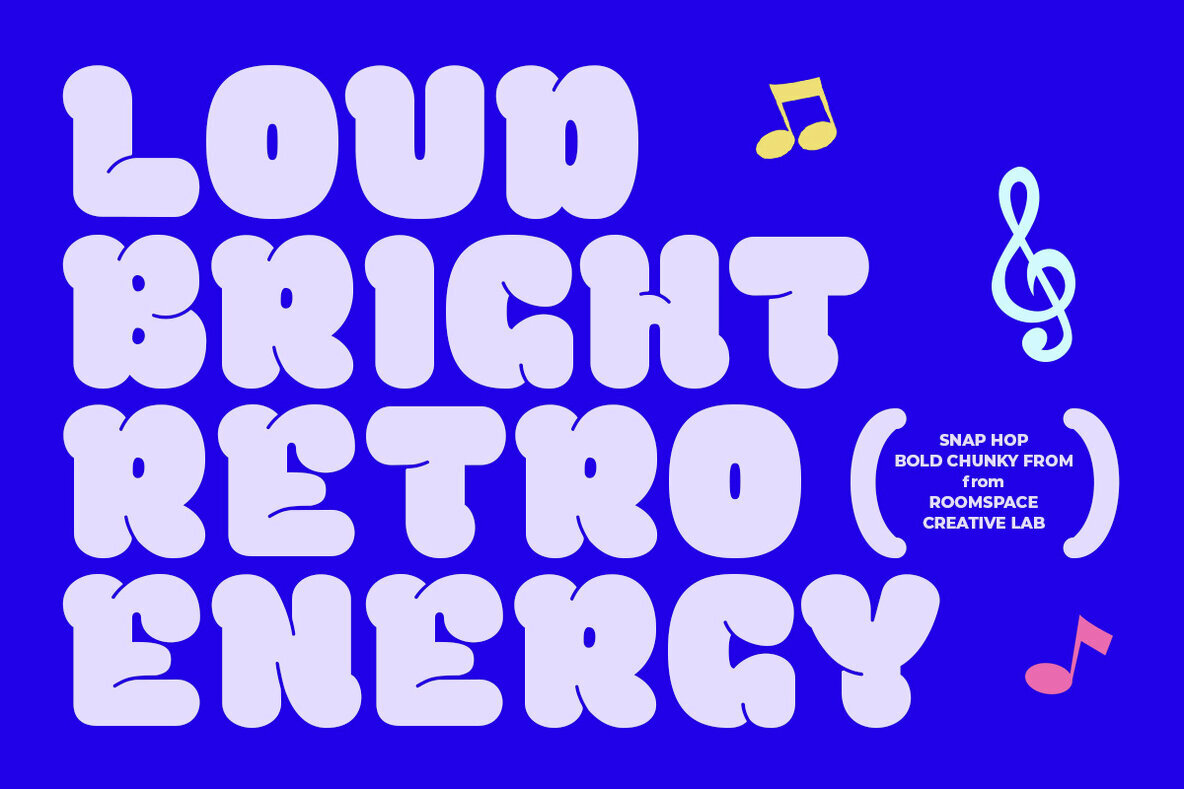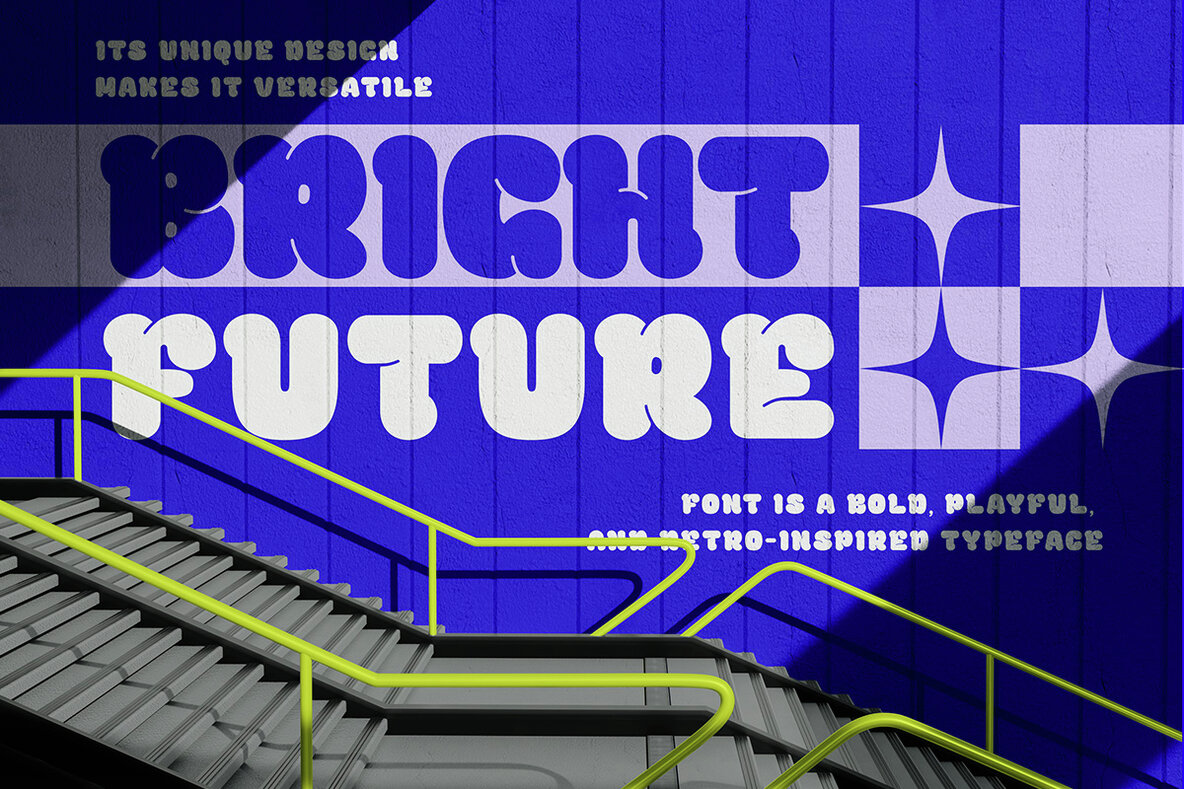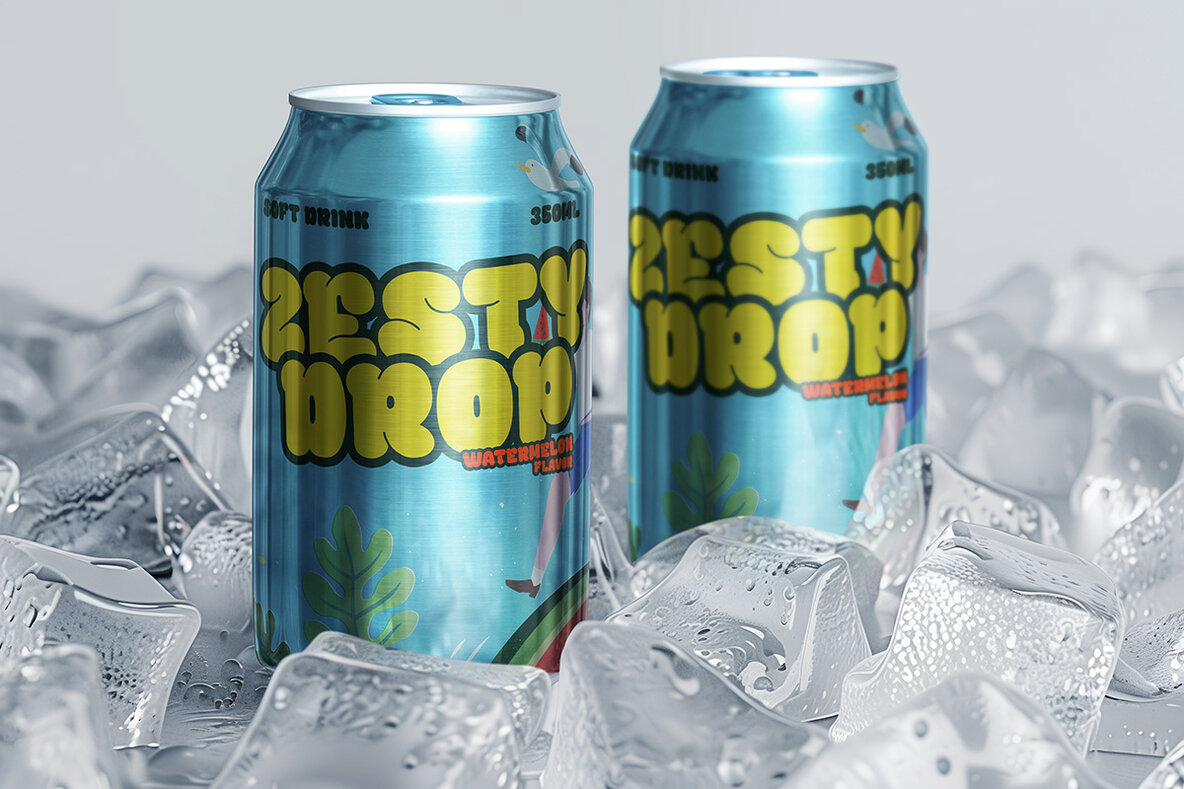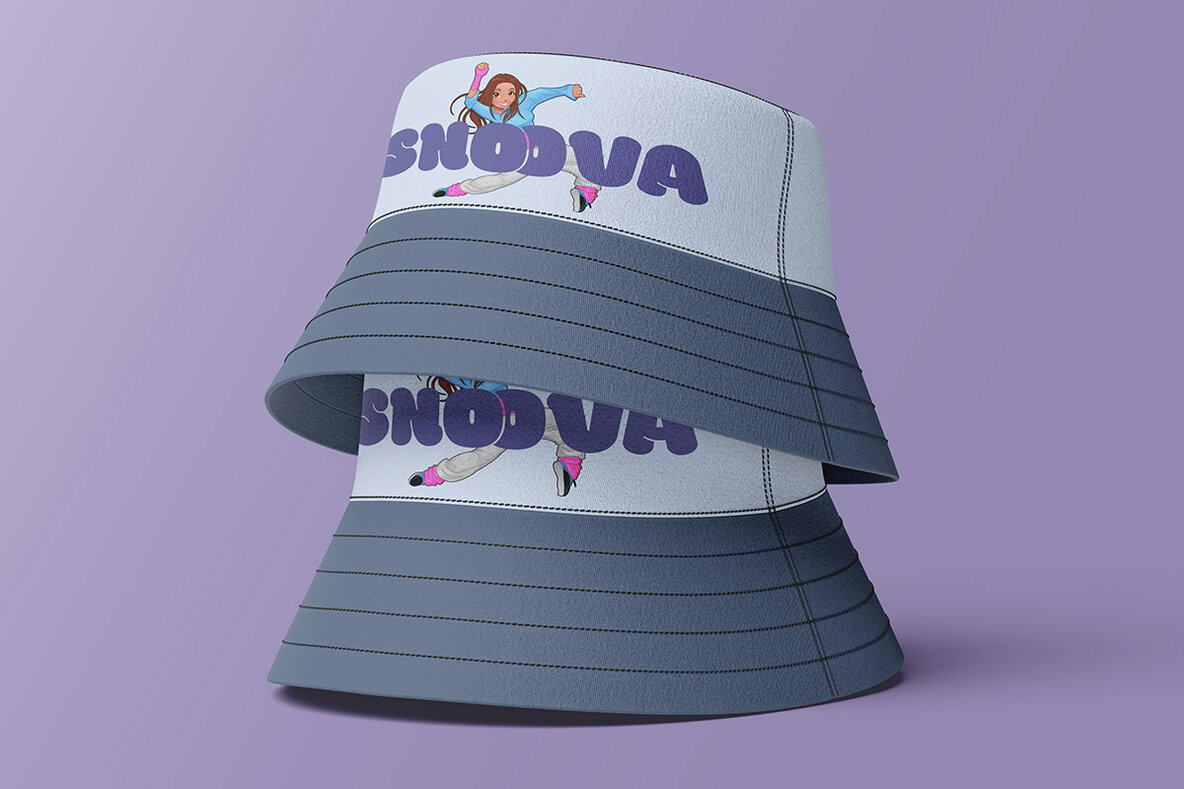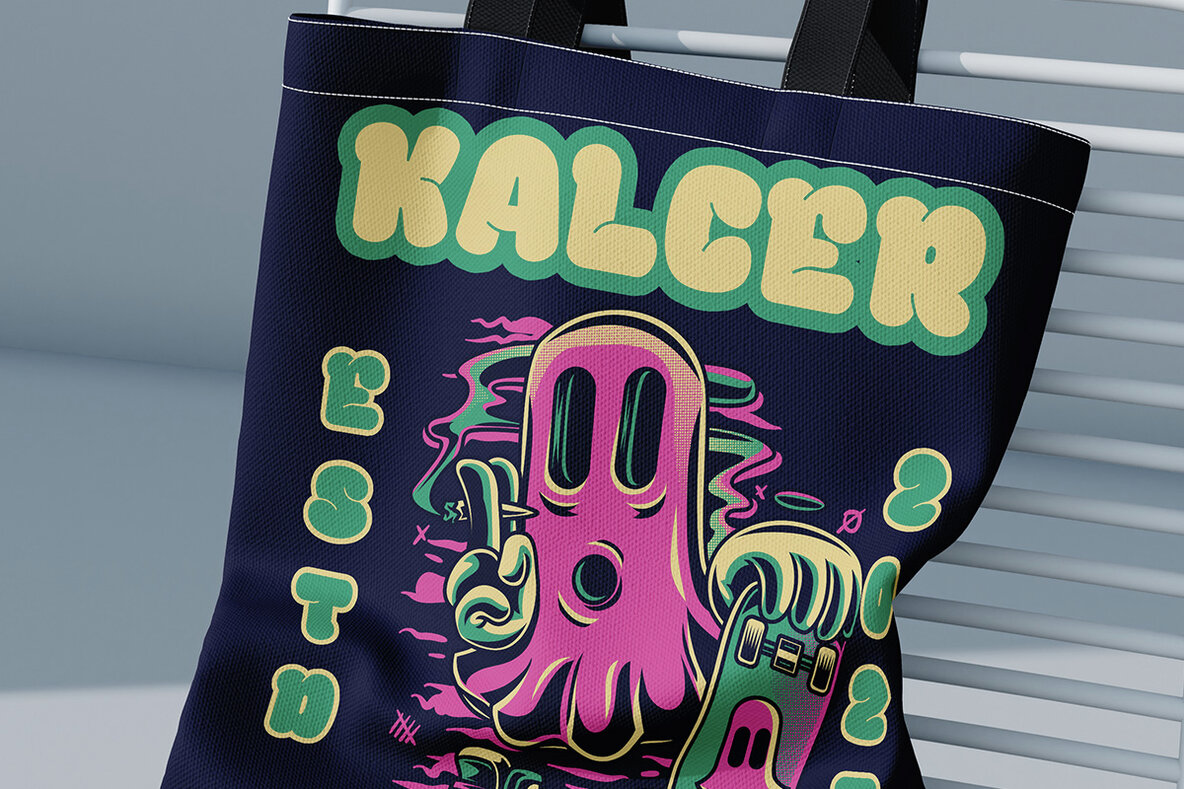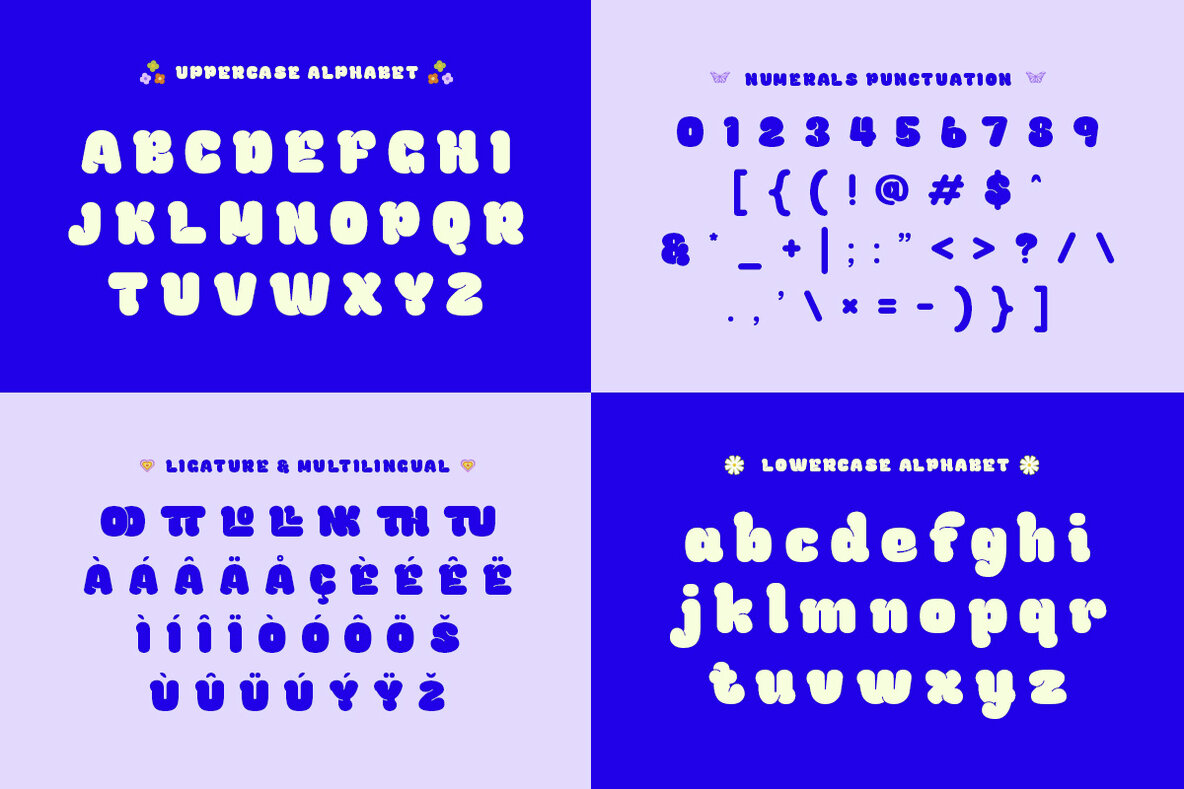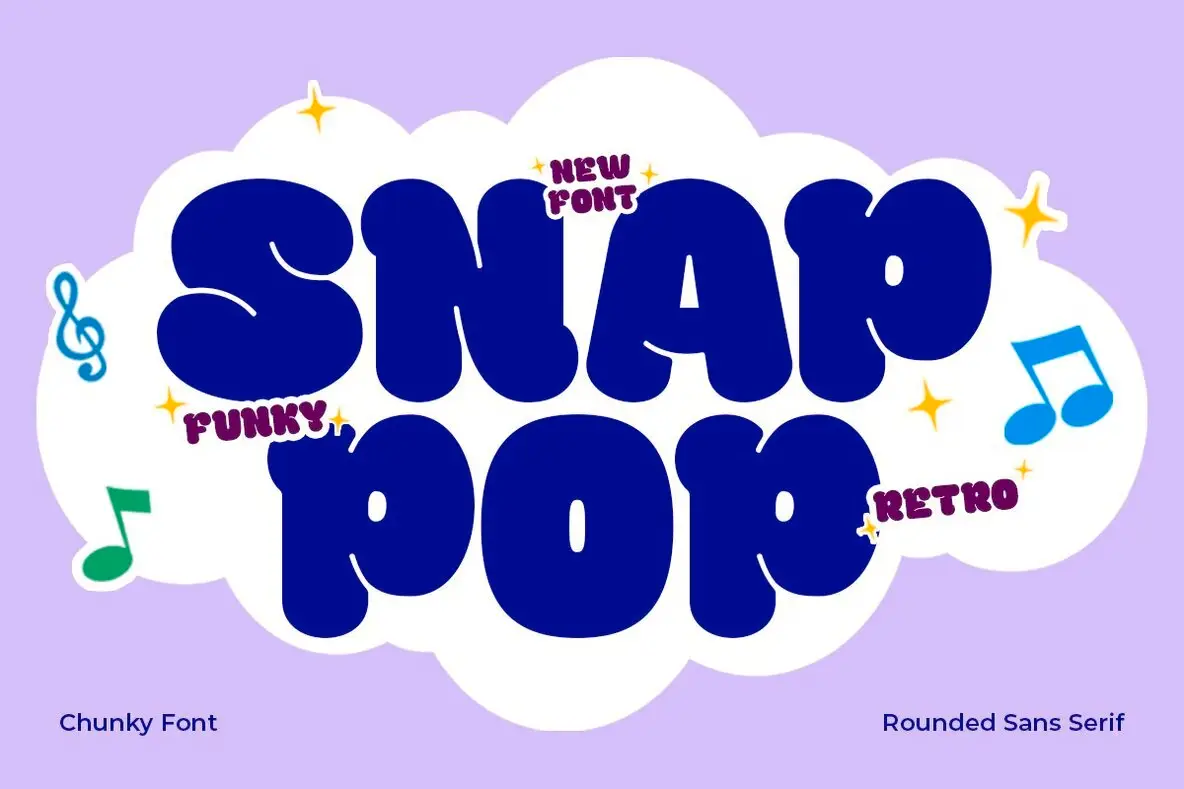
Snap Pop Font
Snap Pop Regular
Introducing Snap Pop, a vibrant and retro-inspired font that bursts with character! Its thick curves and spirited design make it the perfect choice for injecting fun into your creativity. Whether you're designing graphics for kids, crafting lively party invites, or creating eye-catching YouTube thumbnails, Snap Pop delivers a joyful impact every time.Snap Pop Font